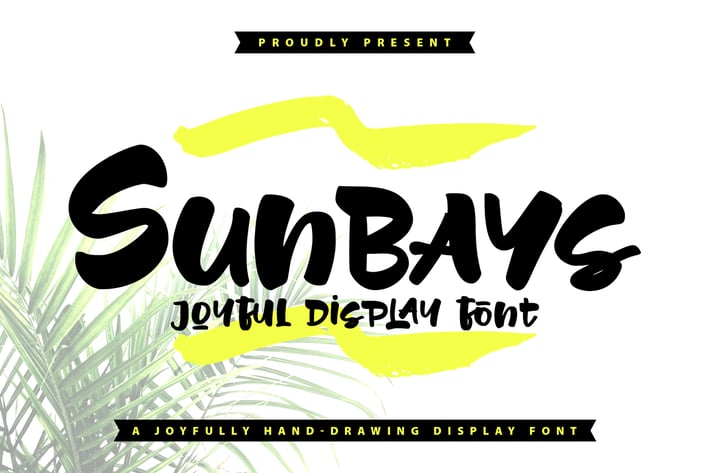
Sunbays | Joyful Display Font
Sunbays | Joyful Display Font with a calligraphy style, So beautiful on invitation like greeting cards, branding materials, business cards, quotes, posters, and more!